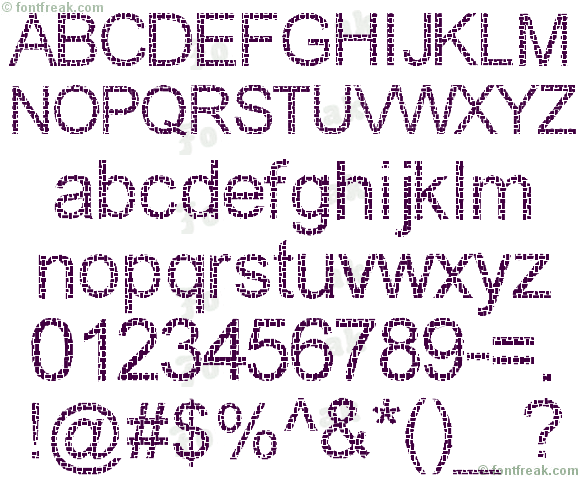
Woven Brickwork
About Woven Brickwork
Woven Brickwork by Gemfonts is a decorative font that uniquely combines elements of artistic flair and structured design, making it a captivating choice for various creative projects. This font features a distinct, woven appearance that mimics the texture of brickwork, characterized by its medium stroke weight and minimal contrast. The spacing between letters is thoughtfully designed to enhance readability while maintaining an artistic touch, allowing each character to stand out without overwhelming the viewer.
Ideal for a range of specific applications, the Woven Brickwork font shines in wedding invitations, where its intricate design adds a touch of sophistication. It is also perfect for movie posters, providing a dynamic and engaging visual that captures attention. Restaurant menus benefit from its unique aesthetic, enticing patrons with an inviting and memorable presentation. Additionally, this font can enhance branding materials for small businesses, giving logos and promotional content a distinctive edge that reflects creativity and thoughtfulness.
The target audience for Woven Brickwork includes graphic designers, small business owners, and content creators who seek to elevate their projects with a font that embodies uniqueness and style. Its versatility allows it to be adapted across different mediums, making it an excellent choice for anyone looking to create visually striking designs.
What makes Woven Brickwork stand out is its ability to blend artistic expression with functionality. The woven texture not only adds depth and interest but also evokes a sense of craftsmanship and attention to detail. For those searching for a Woven Brickwork font free download, this font offers an opportunity to infuse projects with originality and flair, ensuring that every creation leaves a lasting impression.